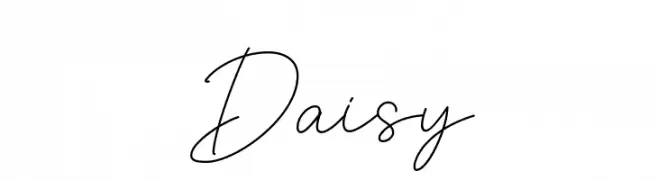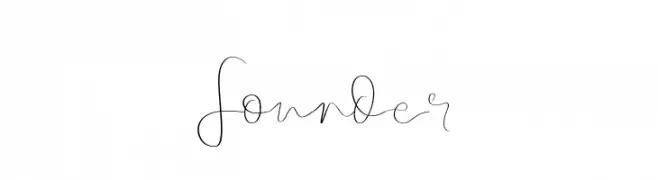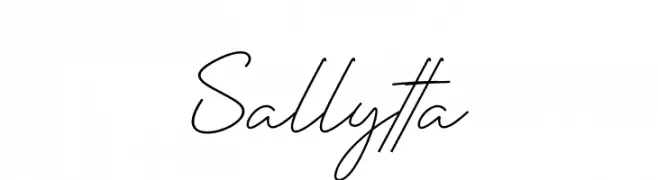
A graceful and flowing handwritten font with thin, delicate strokes.
A delicate, flowing script font with elegant, cursive connections.
A delicate and elegant script font with a handwritten appearance.
A delicate and flowing script font with elegant, cursive letterforms.
A delicate, handwritten cursive font with a flowing, elegant style.
A delicate and flowing script font with elegant curves.
A delicate, elegant script font with thin, flowing strokes and a handwritten style.
A delicate, flowing script font with elegant cursive connections.
A delicate, flowing handwritten font with elegant, thin strokes.
A delicate, flowing script font with thin, graceful lines.